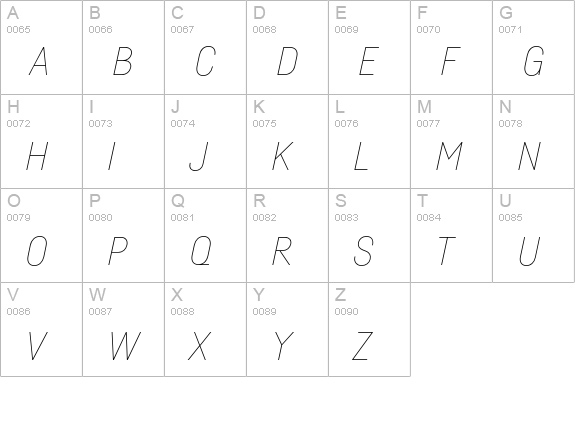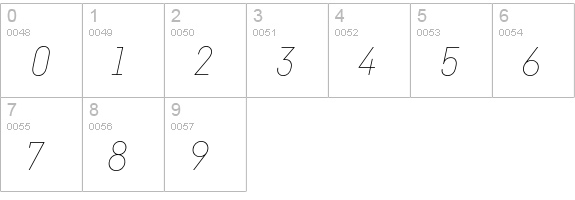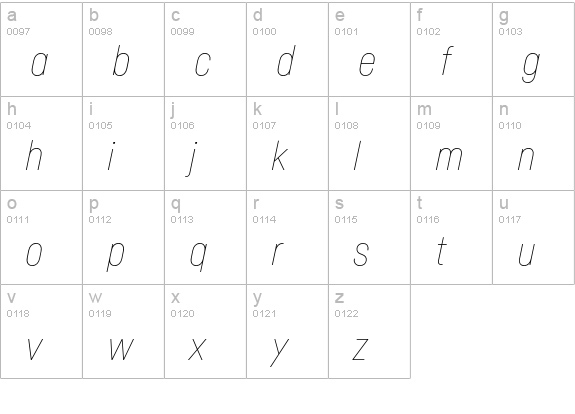
Fabrikat Hairline Italic Font Details
Fabrikat Hairline Italic is an exceptionally fine, almost invisible, italic variant in the Fabrikat typeface family \xE2\x80\x94 well suited to high-end editorial, fashion, and luxury display use.
Fabrikat Hairline Italic font exudes elegance and sophistication with its delicate, flowing curves and stylish design. This sleek typeface is perfect for adding a touch of refined flair to any project, whether it be a modern website, a sleek branding project, or a stylish editorial layout. What sets Fabrikat Hairline Italic apart is its exceptional versatility and readability, making it a go-to choice for designers and creatives looking to elevate their work to the next level. The italicized version of this font adds a touch of flair and sophistication, making it perfect for conveying a sense of modernity and style. The best part? Fabrikat Hairline Italic is available for free download at FontsMarket.com, allowing you to access this premium font without breaking the bank. Don't miss out on the opportunity to enhance your designs with this stunning typeface that is sure to leave a lasting impression.